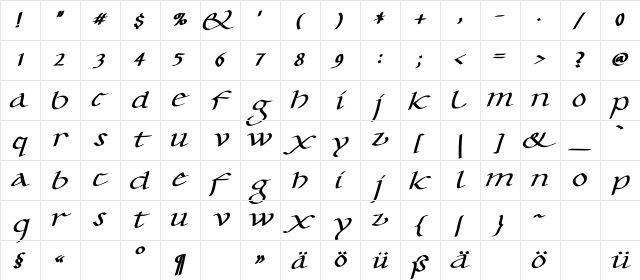
CarolusKlein-Oblique is a composed and adaptable typeface that performs quietly and consistently across a wide range of design contexts. The slanted form adds forward momentum and visual energy.